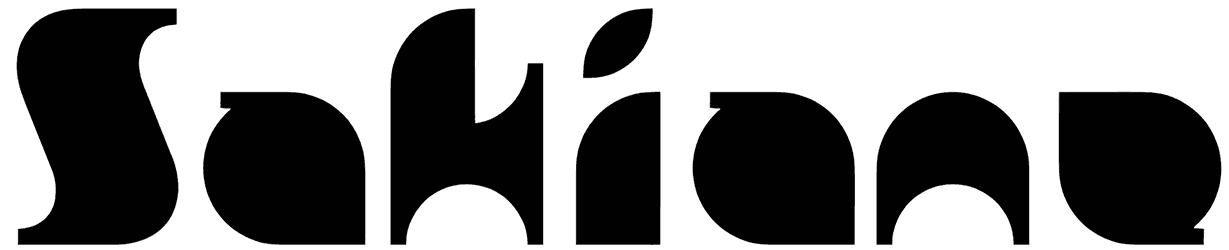
Sakiane is a magical, groovy font that is unbelievably perfect for all of your graphic purposes, including book covers, stickers, branding, gift cards, or social media posts that require a unique, jaunty touch. Since its characters are boldly designed with a special wave, this thick font has the real ability to bring a sense of dynamic, playfulness, grunge, or fierceness to your work.
“Sakiane” Font